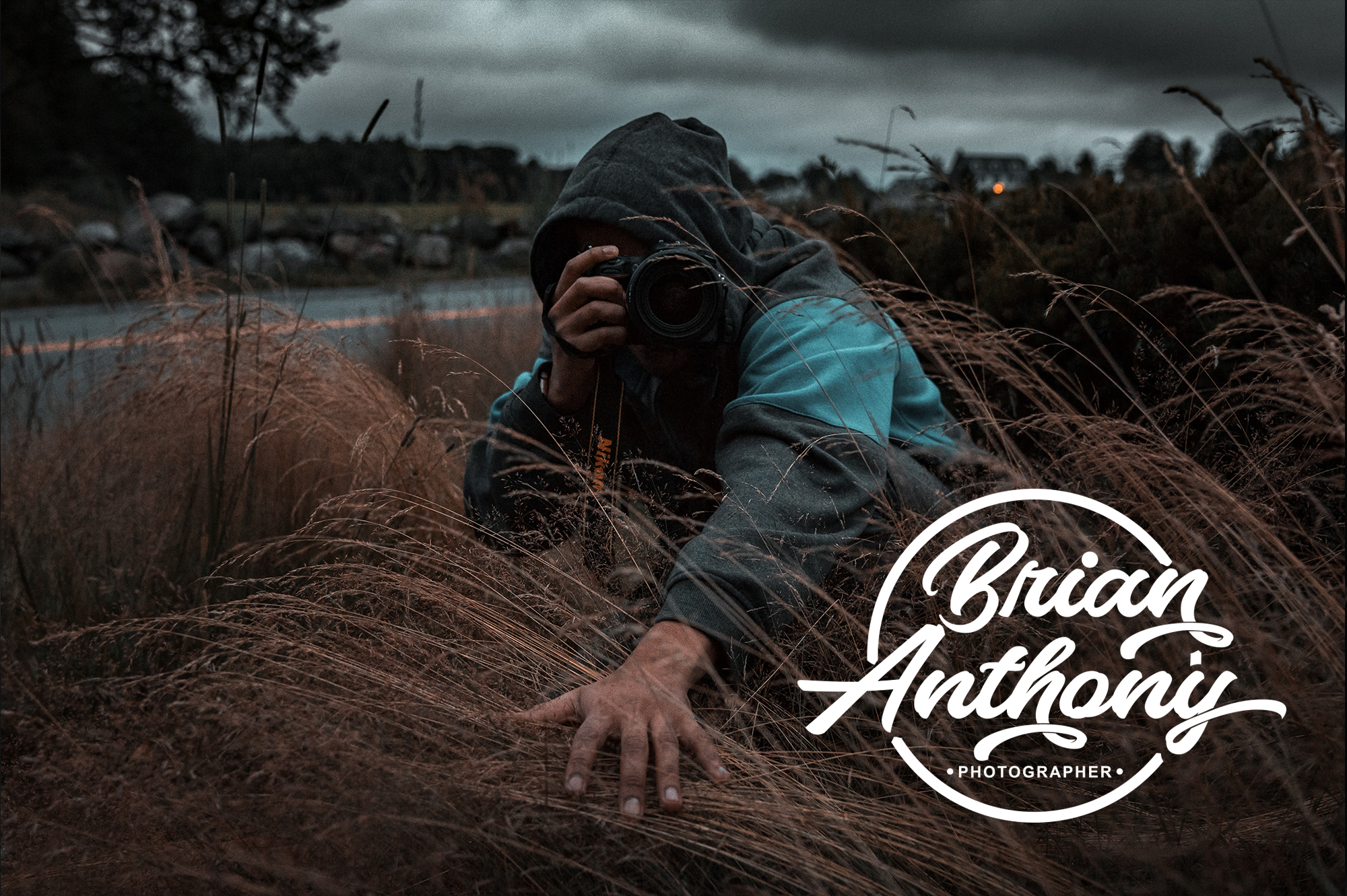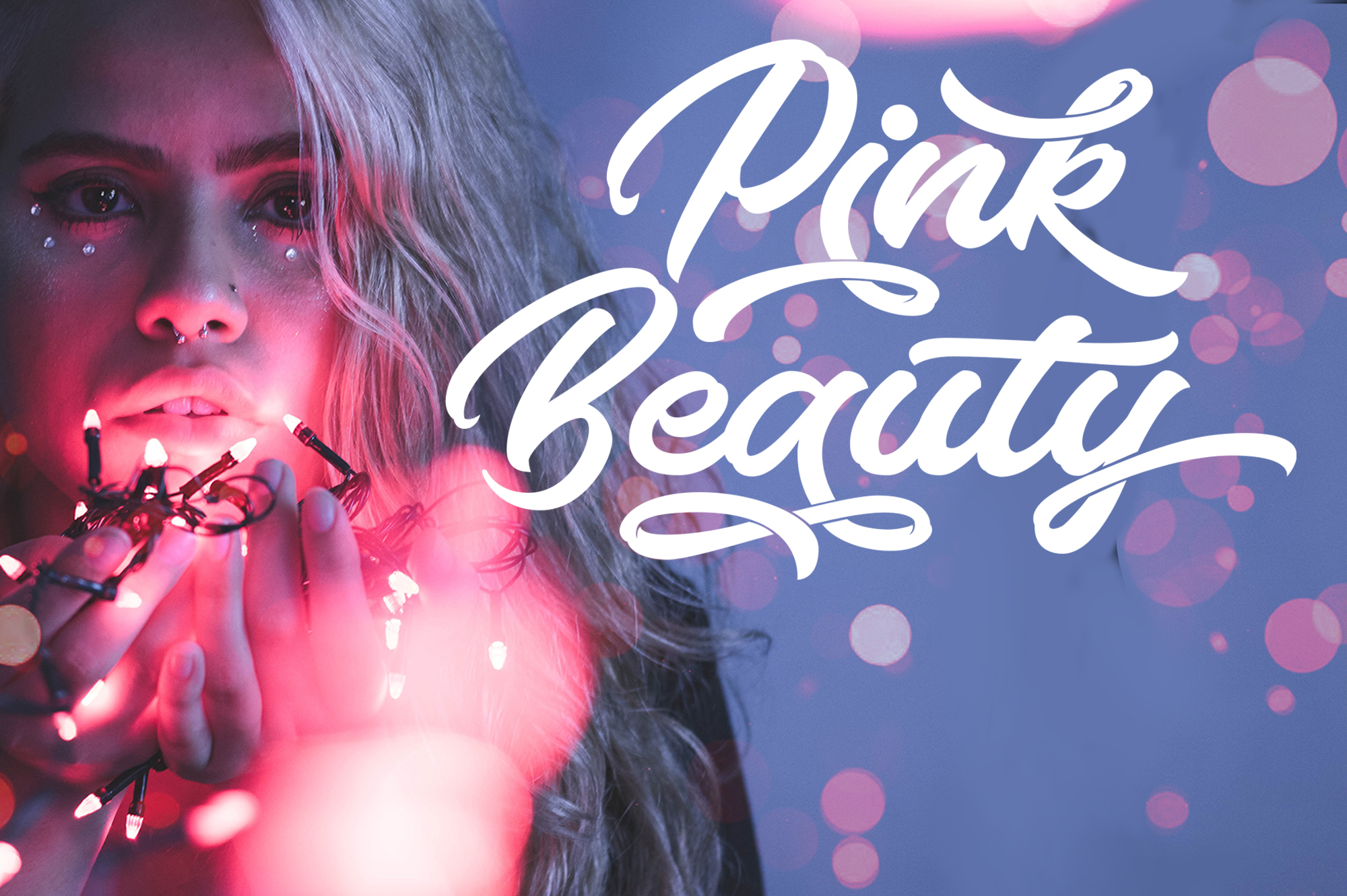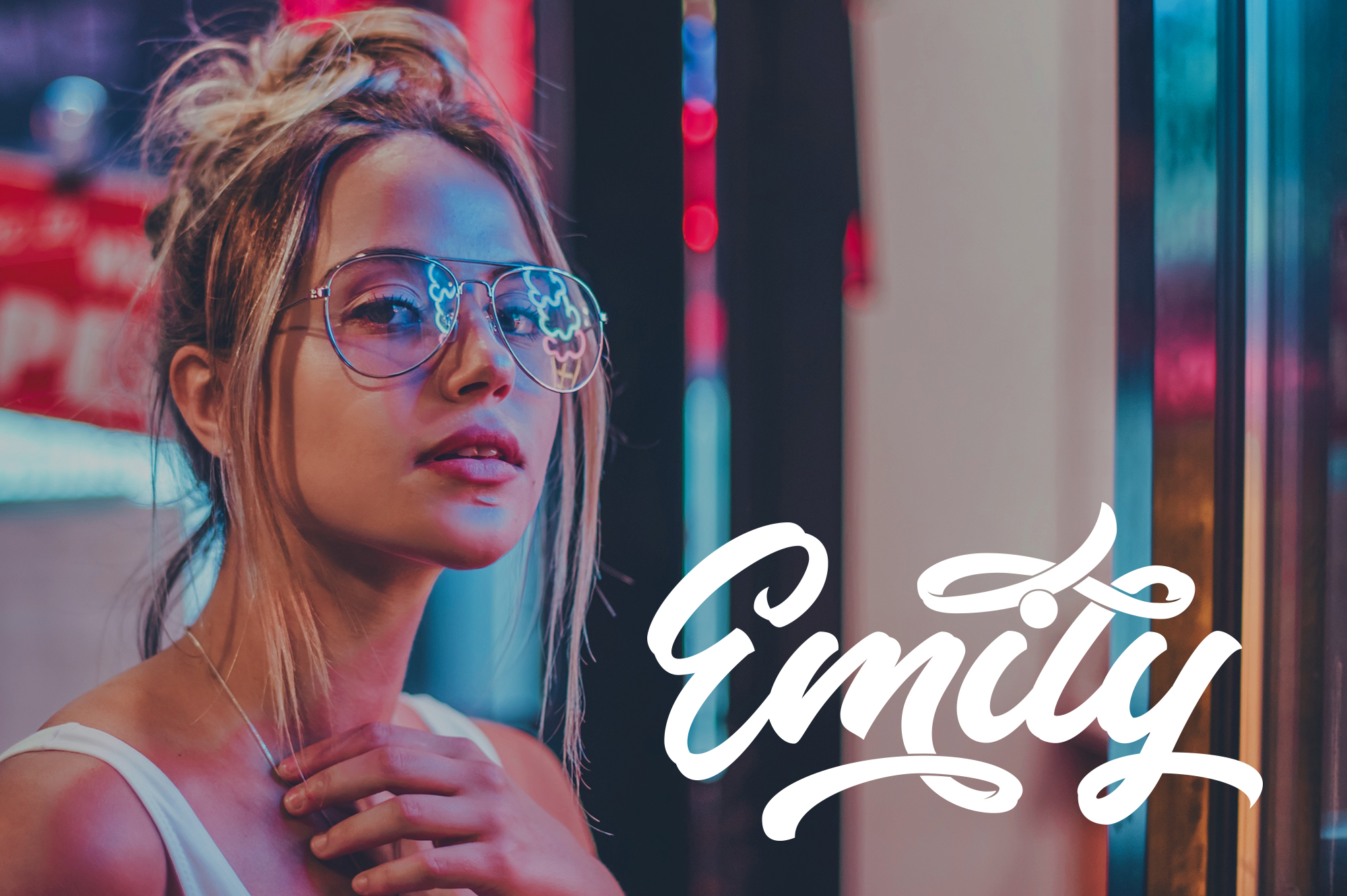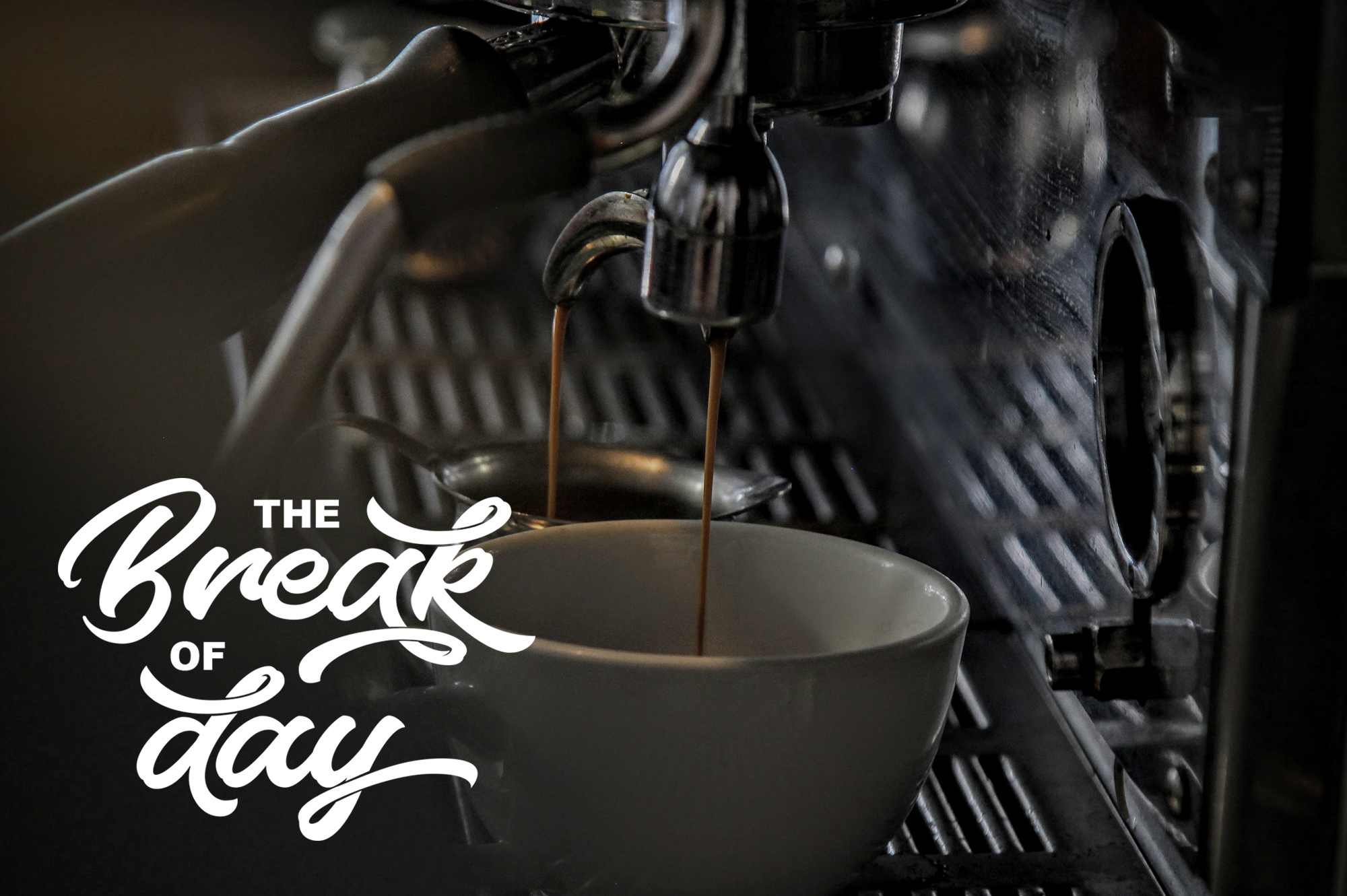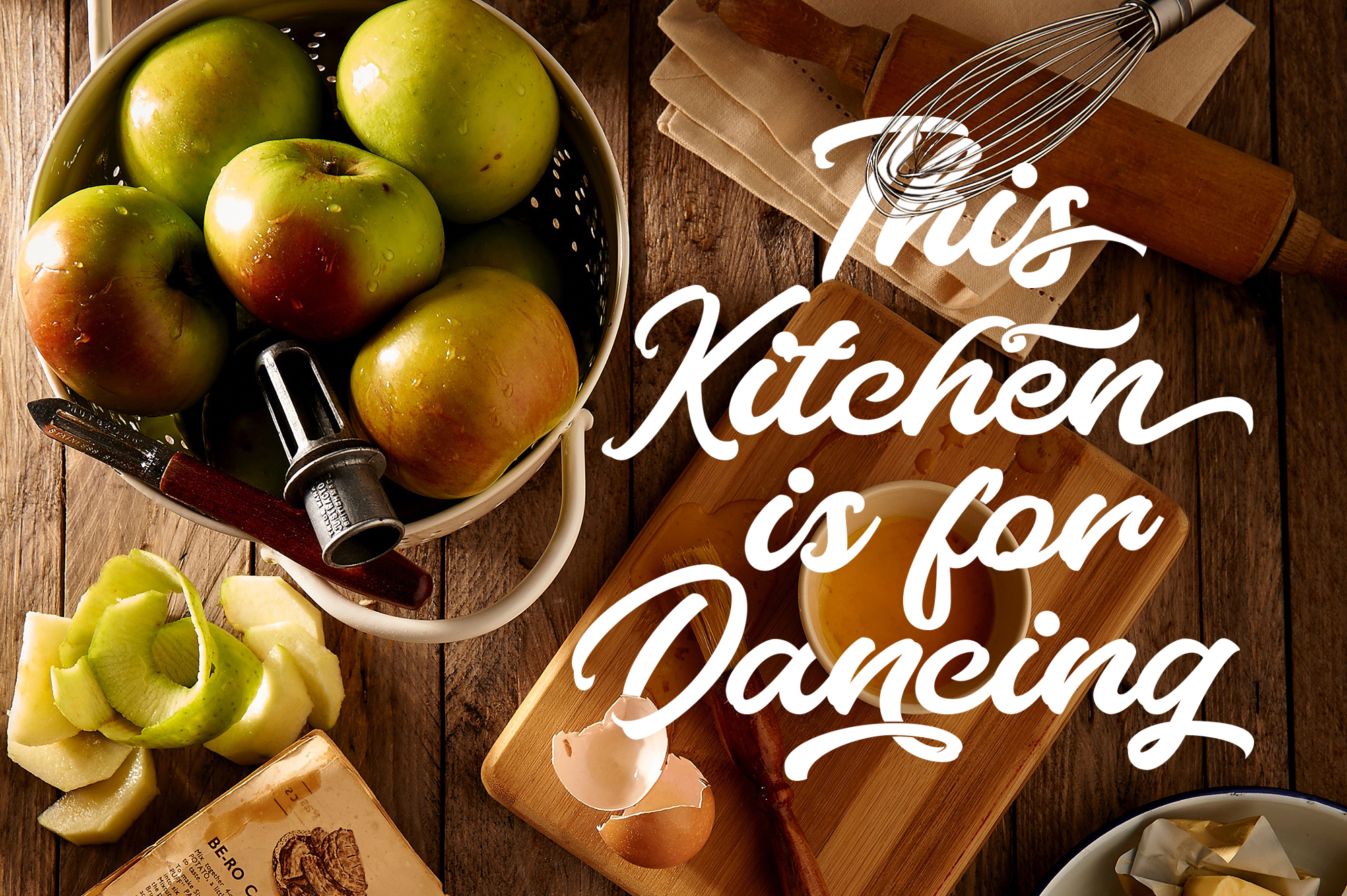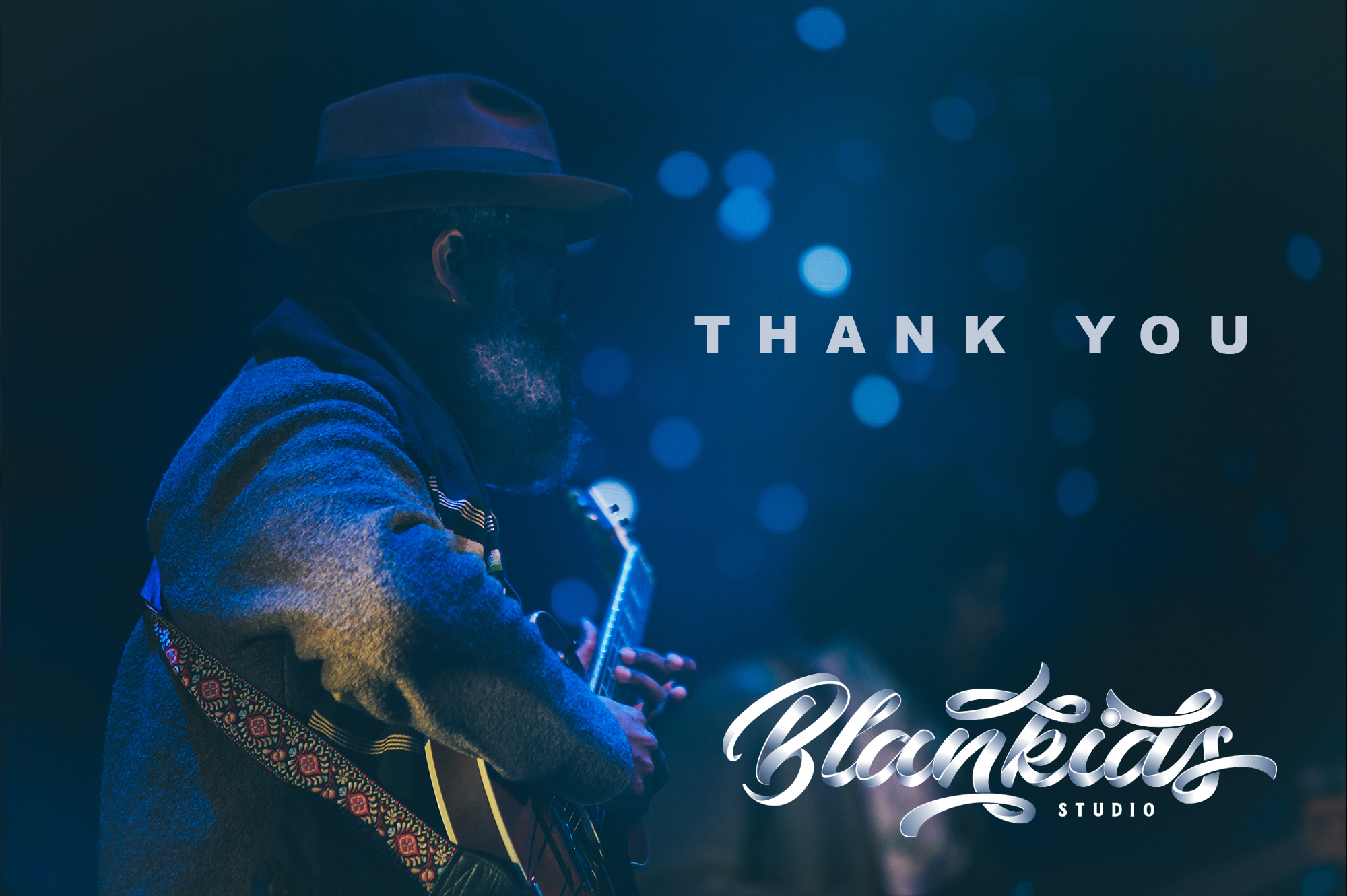
Blandes Font: Elevate Your Designs with a Unique Script Font
Are you tired of using the same old fonts in your designs? Do you want to add a touch of personality and elegance to your projects? Look no further than Blandes Font, a beautifully crafted script font that is sure to take your designs to the next level. Inspired and created by the anatomy of hand-lettering, Blandes is a wonderfully high impact and heavy script that is original to the designer’s own handwriting.
The Story Behind Blandes Font
Blandes Font is a unique and original script font that has been carefully crafted to provide a distinctive and stylish look to your designs. The font is based on the designer’s own handwriting, which gives it a personal and authentic touch. The designer’s goal was to create a font that would be both elegant and versatile, and we believe that Blandes Font achieves this goal perfectly.
Key Features of Blandes Font
So, what makes Blandes Font so special? Here are just a few of the key features that set it apart from other script fonts:
- Original Handwriting: Blandes Font is based on the designer’s own handwriting, which gives it a unique and personal touch.
- Alternate Character Styles: The font includes alternate character styles that further amplify the uniqueness of this design. This means that you can add even more personality and variety to your designs.
- High Impact and Heavy Script: Blandes Font is a wonderfully high impact and heavy script that is perfect for making a statement in your designs.
Why Choose Blandes Font?
So, why should you choose Blandes Font for your next design project? Here are just a few reasons why:
- Add Personality to Your Designs: Blandes Font is the perfect way to add a touch of personality and elegance to your designs. Whether you’re working on a logo, a website, or a marketing campaign, this font is sure to make your designs stand out.
- Stand Out from the Crowd: With Blandes Font, you can create designs that are truly unique and eye-catching. The font’s distinctive style and elegant lines make it perfect for designers who want to create something truly special.
- Perfect for a Variety of Projects: Blandes Font is incredibly versatile and can be used in a wide range of design projects, from logos and branding to websites and marketing materials.
In conclusion, Blandes Font is a beautifully crafted script font that is sure to elevate your designs to the next level. With its unique and elegant design, alternate character styles, and high impact and heavy script, this font is perfect for designers who want to create something truly special. So why wait? Download Blandes Font today and start creating stunning designs that will leave a lasting impression.